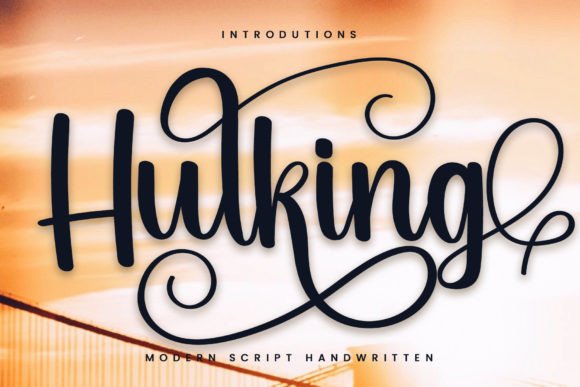
Introducing Hulking Font - The Bold and Expressive Script for Unforgettable Designs
In the realm of digital artistry, fonts possess the power to transform words into captivating expressions, evoking emotions and setting the tone for your creative endeavors. Among the vast font families, Hulking Script stands as a true masterpiece, a bold and expressive font that will leave an unforgettable mark on your designs.
Crafted with the utmost care and attention to detail by the talented team at Bintang Studio, Hulking Font embodies the perfect balance between playful and professional. Its thick and solid lines ensure effortless readability, while its conservative bends lend a touch of sophistication that prevents it from overwhelming the eyes.
Whether you're designing wedding invitations, elegant flyers, or eye-catching social media posts, Hulking Font is your perfect companion. Its versatility knows no bounds, allowing you to create designs that speak volumes and leave a lasting impression on your audience.
Step into a world of creative possibilities with Hulking Font. Let its bold strokes and expressive curves ignite your imagination and elevate your designs to new heights. Experience the transformative power of typography and see your words come alive in a symphony of visual delight.
Unleash the full potential of your creativity with Hulking Font, the ultimate choice for designers seeking a font that commands attention and leaves an indelible mark.